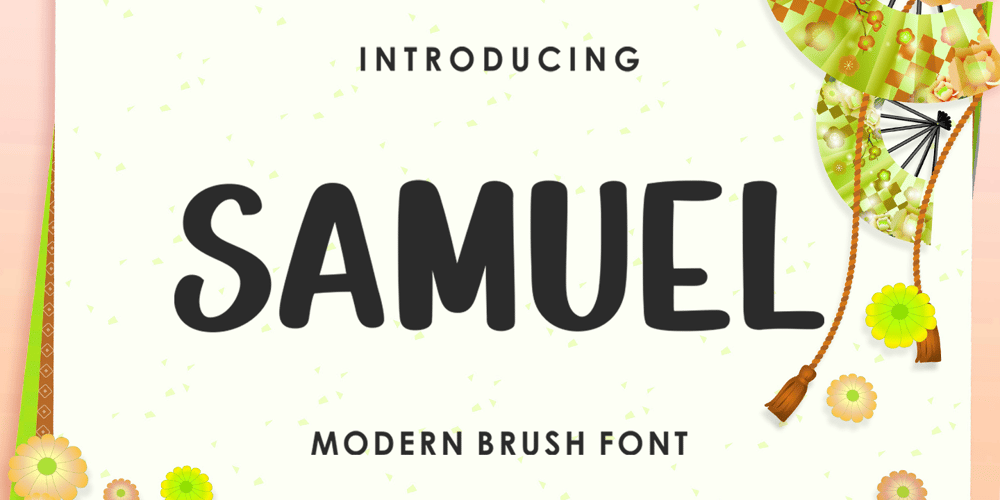
Samuel Font Family was designed by Afri Giani and published by Gian Studio. Samuel contains 1 styles and family package options. INTRODUCINGSamuel is modern brush font, stylish and organic. can be used for stationery, fashion, logo, merchandise, books, clothing, magazines, cover artwork etc. Syaquita includes several ligatures, alternates and international support for most western languages.Thanks so much for looking, I really hope you enjoy it and please don’t hesitate to drop me a message if you have any issues or queries ๐